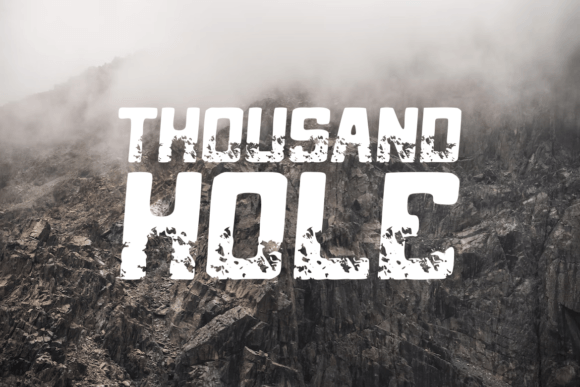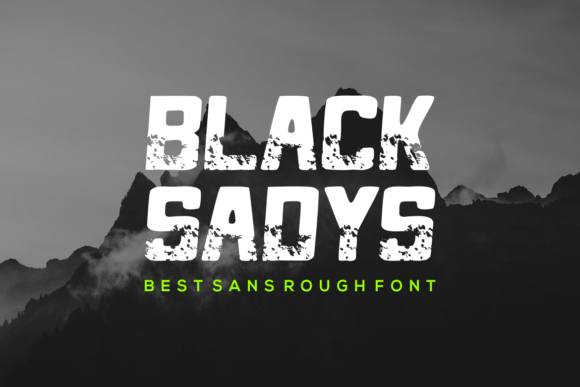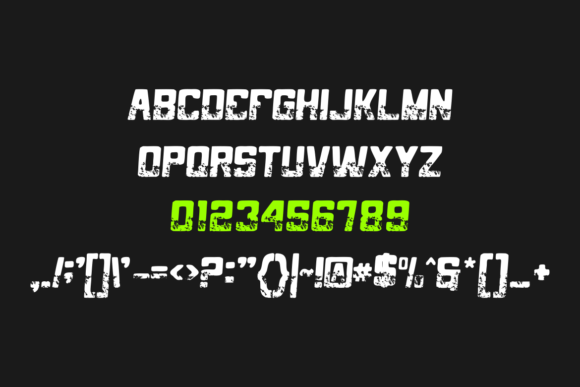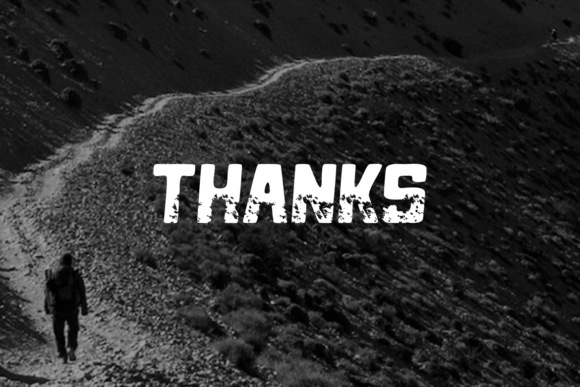
Unleash Your Creativity with Black Sadys Font: A Bold and Edgy Sans-Serif Typeface
Are you tired of using the same old fonts in your designs? Look no further than Black Sadys Font, a bold, sans-serif typeface that’s sure to grab attention. With its strong lines and textured look, this font is perfect for designers and crafters who want to add a unique, rugged feel to their work.
What is Black Sadys Font?
Black Sadys Font is a bold, sans-serif font with a rough, edgy style. Its strong lines and textured look give it a unique, rugged feel that’s great for grabbing attention. This font is perfect for use in a variety of design projects, from posters and flyers to logos and branding materials.
Key Features of Black Sadys Font
- Bold and Edgy Style: Black Sadys Font has a bold, edgy style that’s sure to grab attention.
- Strong Lines: The font features strong lines that give it a rugged, textured look.
- Sans-Serif Design: The font has a sans-serif design, making it perfect for use in a variety of design projects.
- Unique and Rugged Feel: The font’s unique, rugged feel makes it perfect for designers and crafters who want to add a touch of personality to their work.
Uses for Black Sadys Font
Black Sadys Font is a versatile typeface that can be used in a variety of design projects, including:
- Posters and Flyers: The font’s bold, edgy style makes it perfect for use in posters and flyers.
- Logos and Branding Materials: The font’s strong lines and textured look make it a great choice for use in logos and branding materials.
- Signs and Banners: The font’s bold, rugged style makes it perfect for use in signs and banners.
- Digital Media: The font can also be used in digital media, such as social media graphics and video titles.
Tips for Using Black Sadys Font
Here are a few tips for using Black Sadys Font in your designs:
- Use it Sparingly: Because of its bold, edgy style, it’s best to use Black Sadys Font sparingly in your designs.
- Pair it with Other Fonts: The font pairs well with other fonts, such as serif fonts and script fonts.
- Experiment with Colors: The font looks great in a variety of colors, so don’t be afraid to experiment.
Black Sadys Font is a bold, sans-serif typeface that’s perfect for designers and crafters who want to add a unique, rugged feel to their work. With its strong lines and textured look, this font is sure to grab attention and make your designs stand out. Whether you’re working on a poster, logo, or digital media project, Black Sadys Font is a great choice.